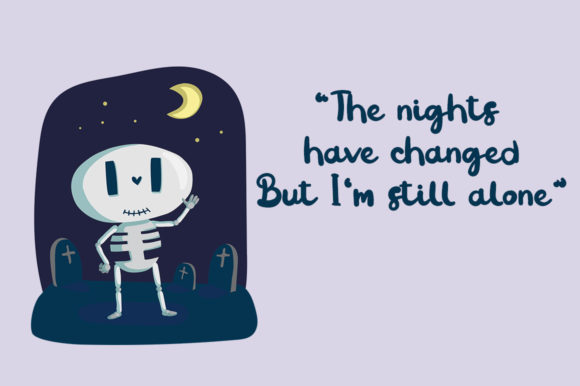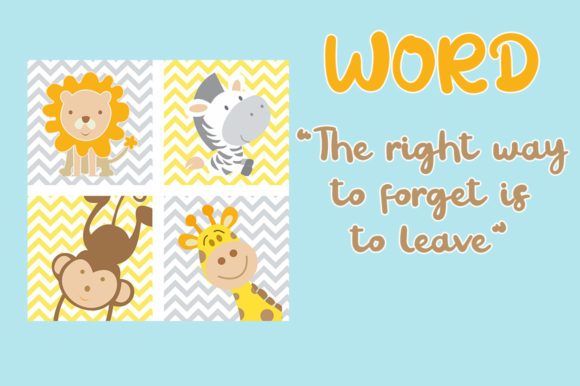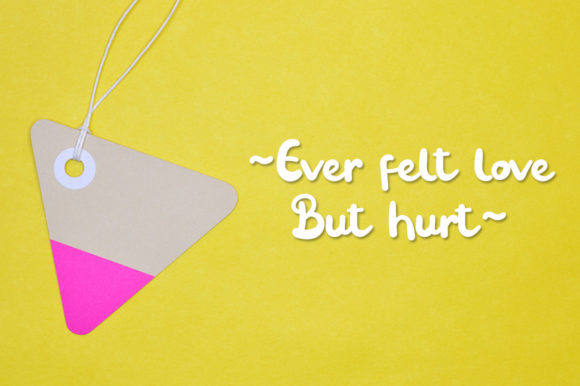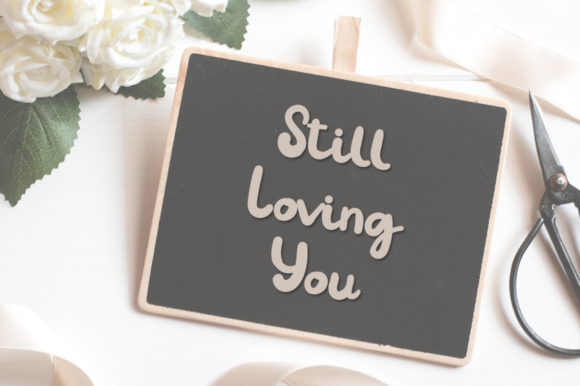
About Handwriting Font
Handwriting is a sweet, delicate and flowing script font. Featuring characters that dance along the baseline, this font will add a luxury spark to any design project that you wish to create!